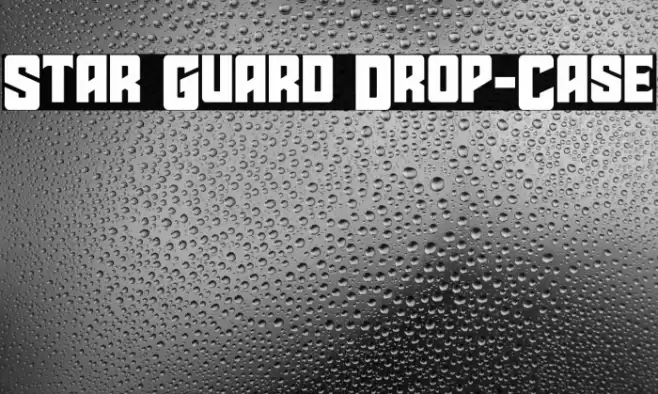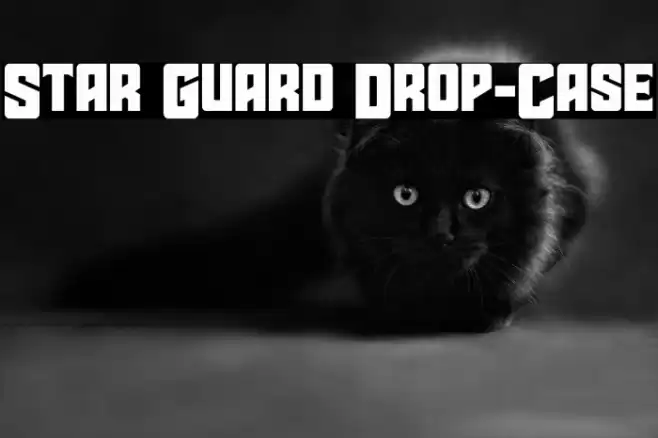
Star Guard Drop-Case Font
Star Guard Drop-Case Description
This bold and striking font features a futuristic and geometric design, characterized by its sharp angles and thick strokes. The uppercase letters are uniform in height, with a consistent width that gives a strong, cohesive appearance. The numbers and special characters follow the same bold style, ensuring a seamless integration across different uses. The font's unique style is enhanced by its angular cuts and sharp edges, making it ideal for projects that require a modern and impactful look.
- Proposed Projects: Ideal for sci-fi themed posters, video game titles, branding for tech companies, and any project needing a modern, bold statement.